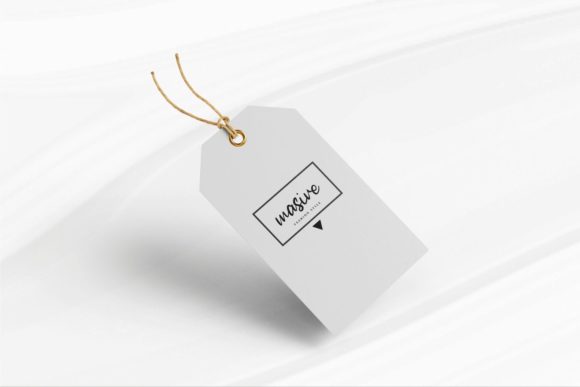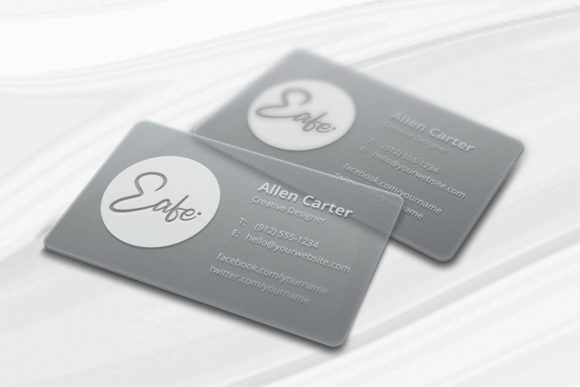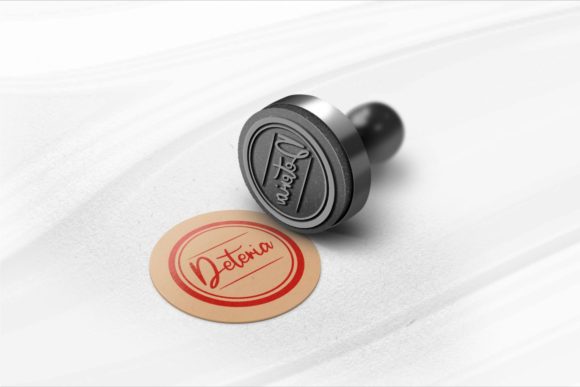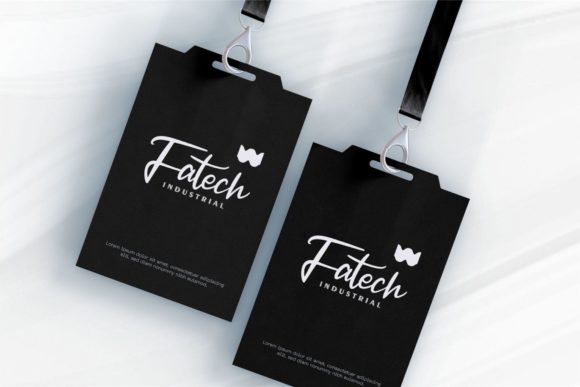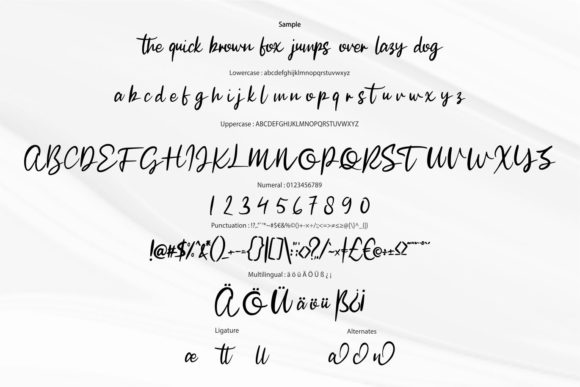
The Perfect Blend of Style and Sophistication: Cafesen Font
As a designer, there’s nothing quite like the thrill of bringing a project to life. It’s the moment when all the elements come together, and your vision takes shape. But what happens when you’re struggling to find the perfect font to give your design that extra oomph? That’s where Cafesen Font comes in – a stunning, elegant handwritten font that’s sure to elevate any project.
Cafesen Font is more than just a font – it’s a statement piece. With its flowing lines and charming appearance, it’s perfect for designers who want to add a touch of sophistication to their work. Whether you’re creating a logo, a brochure, or a social media post, Cafesen Font is sure to make a lasting impression. And with its versatility, you can trust that it will always look great, no matter what project you’re working on.
Cafesen Font Key Features
- Font Family: Cafesen Font is a unique, high-quality font family that offers a wide range of styles and weights.
- Size: The font family includes 12 font styles, ranging from Thin to ExtraBold, each with its own unique characteristics.
- Unique Characteristics: The Cafesen Font features a modern, elegant design with subtle flair and intricate details, making it ideal for use in branding, advertising, and editorial content.
Cafesen Font Review
I recently had the chance to dive into the Cafesen Font, and I have to say, it’s a real mixed bag. Here are my thoughts:
- ✨ The font has a unique, hand-drawn feel that’s perfect for adding a touch of whimsy to your designs.
- ✨ The Cafesen Font comes with a wide range of characters and glyphs, including international characters, making it a great choice for global brands.
- ✨ The font is highly customizable, allowing you to adjust the weight, style, and other settings to fit your design needs.
- ⚠️ The font can feel a bit over-ornate, which may not be suitable for all design projects.
- ⚠️ Some characters, particularly in the smaller weights, can be difficult to read at certain font sizes.
While the Cafesen Font has some amazing features, it’s not without its limitations. If you’re looking for a unique, hand-drawn feel and don’t mind a bit of ornamentation, this font might be a great choice. However, if you’re looking for something clean and simple, you may want to consider other options.
Tips for getting the most out of Cafesen Font in Canva include using it for headings and titles to add a touch of elegance and sophistication.
Tips for getting the most out of Cafesen Font in Adobe Photoshop or Illustrator include using it for custom typography and creative layouts.
Tips for getting the most out of Cafesen Font in PowerPoint or Word include using it for presentations and documents that require a professional and elegant touch.
Cafesen Font is ideal for use in creative projects such as:
- Graphic design and visual arts